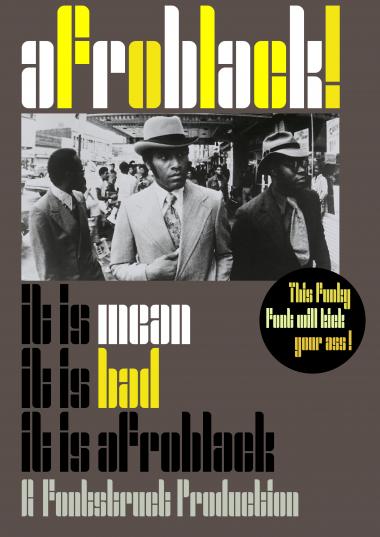
Wow! Thank you for providing a wonderful demo pic, so we can fully appreciate Afroblack. I like the whole family. 10/10
Thanks a lot, Frodo! As I wrote before, I'm still very uncertain about the numbers and a couple of the UC letters. If you have any suggestions, just let me now.
Well, a few of your glyphs made me pause: "f" - I thought it was a bit top heavy; "j,i" - the dot was far too big, etc. But then, they fit nicely to the whole set and contribute to its character. So just leave them as they are. The "T" is a bit funny, but unique, a kind of inventive. Te only thing I would change is number "1": a single column would do, with a rounded top left corner (the mirror of the lc "l"). One can easily mistake it for number 7, if there are no 7s in the text. Put "Stencil" in the tags to help the search engines.
I agree with the ring bearer, the stencil tag totally applies to this beauty. Plus I'm marveled on how you kept the width consistency along the T without making thinner blocks for the crossbar.
I totally dig this creative streak of yours.
Keep'em coming, Sam!
Black is sure beautiful ... a real FunkStruct
GREAT! 10/10